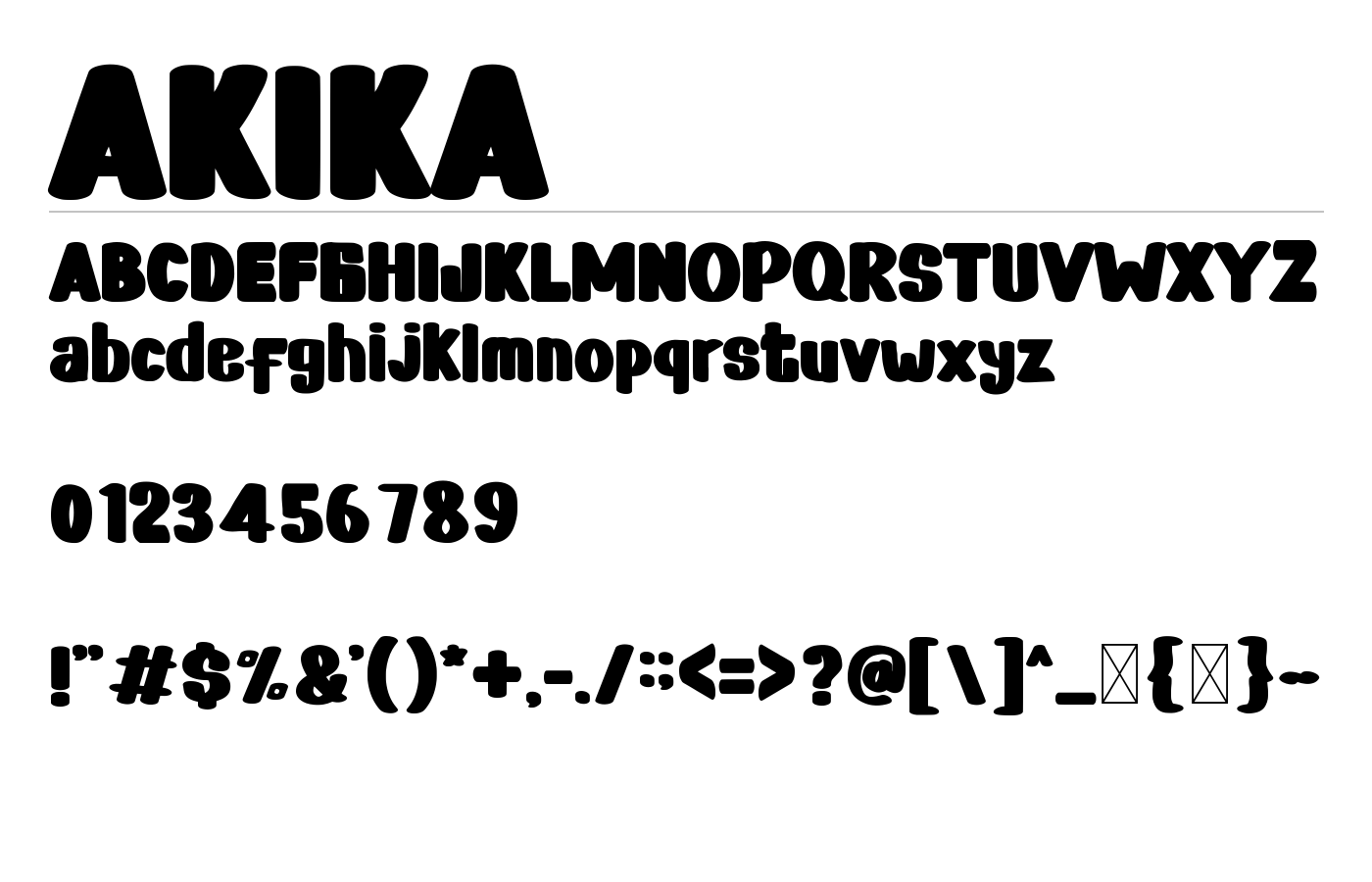
AKIKA is a bold, playful sans serif font with thick, rounded letterforms that convey a friendly and approachable personality. Its chunky, slightly condensed shapes and moderate x-height make it ideal for eye-catching headlines, logos, and branding that want to express fun and creativity. This font works best in designs for children’s products, entertainment, or casual, upbeat brands due to its warm and inviting style.
AKIKA Font